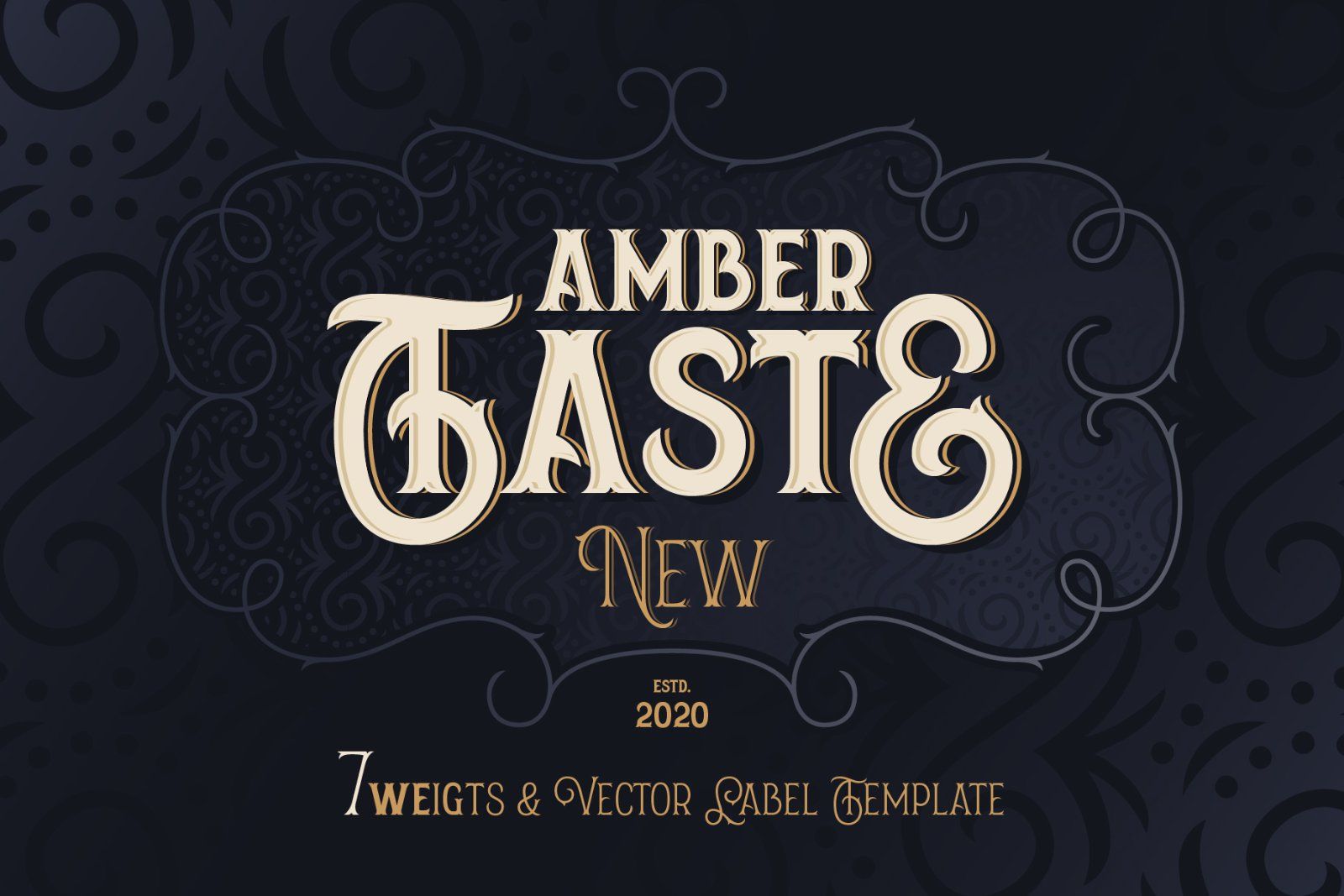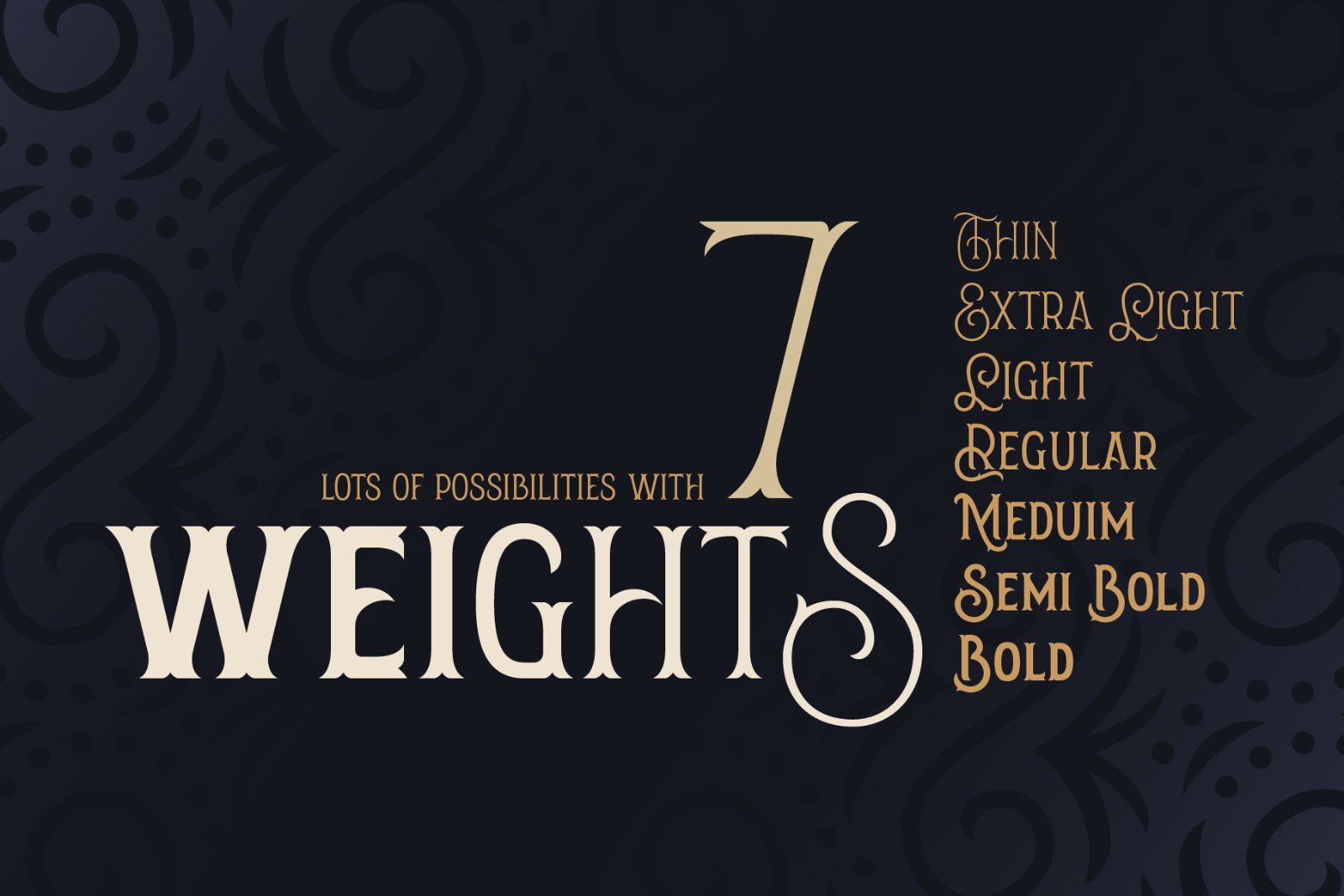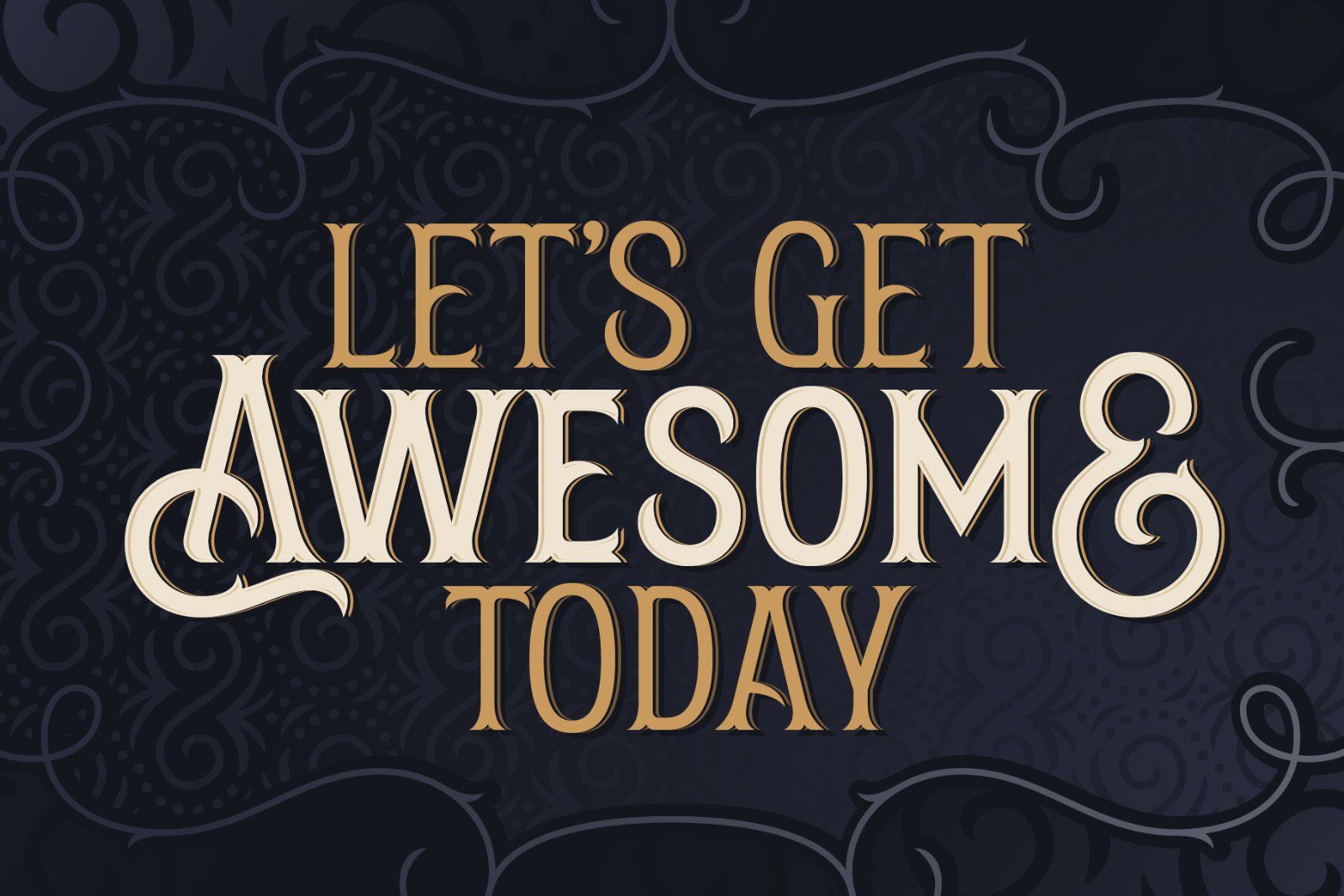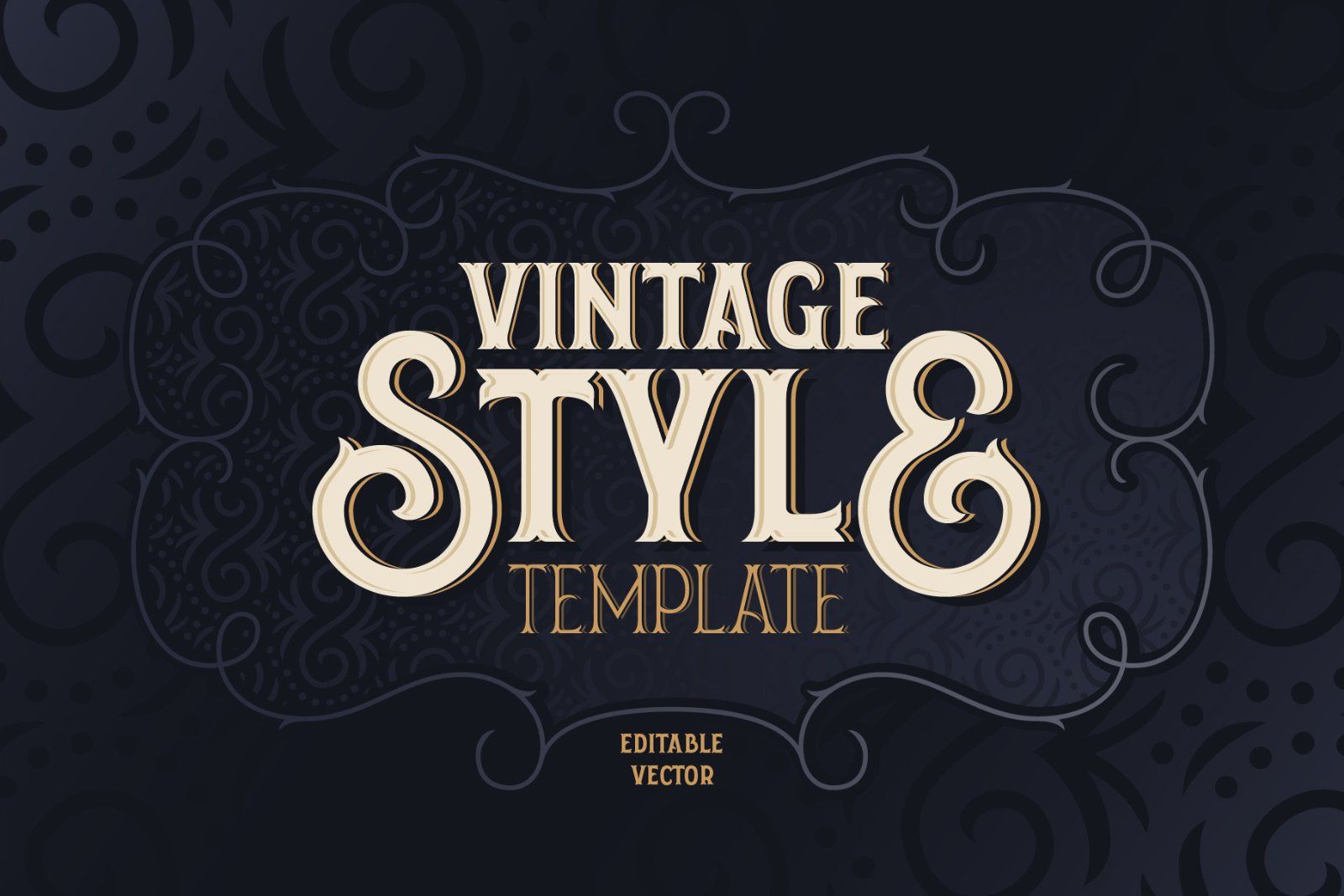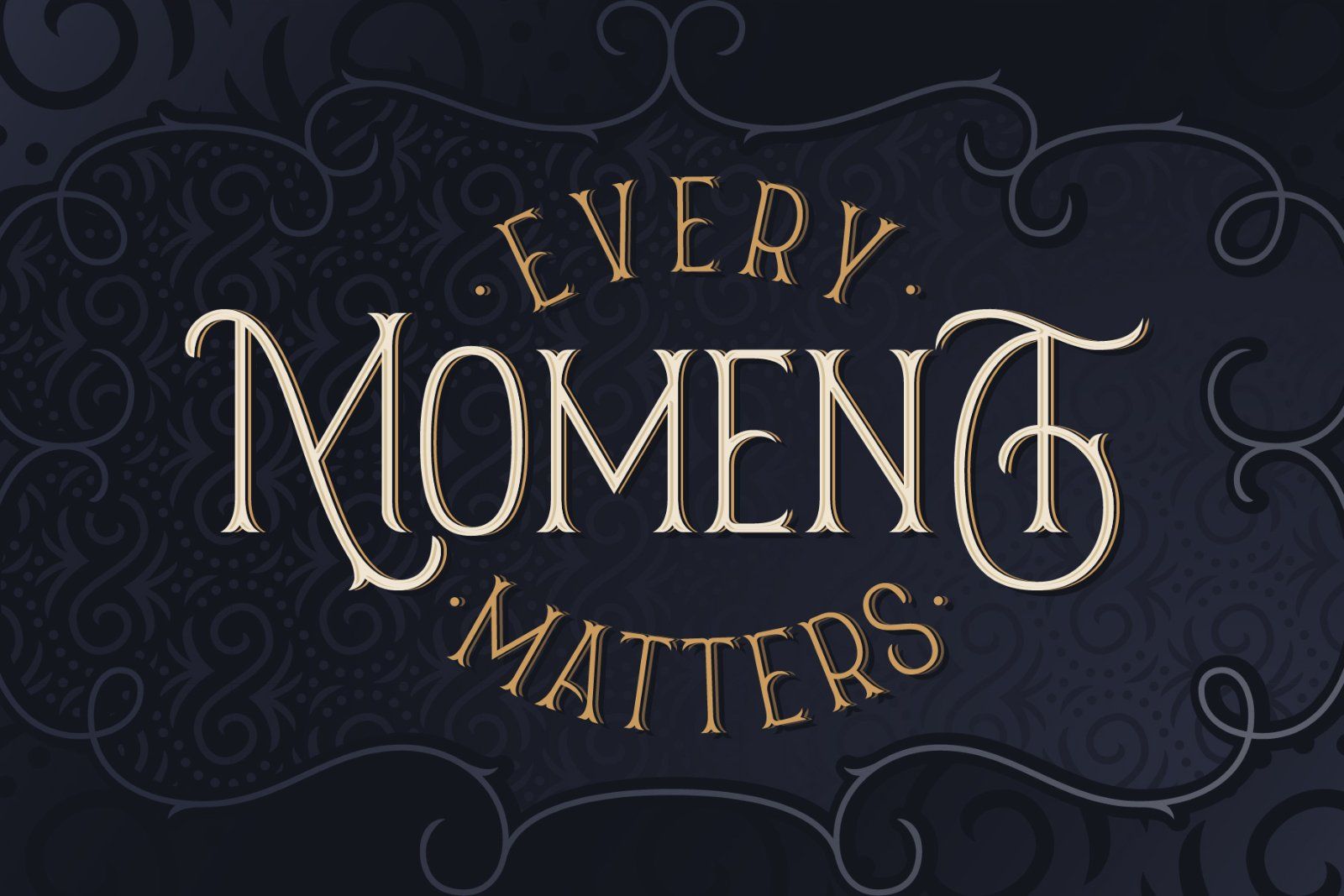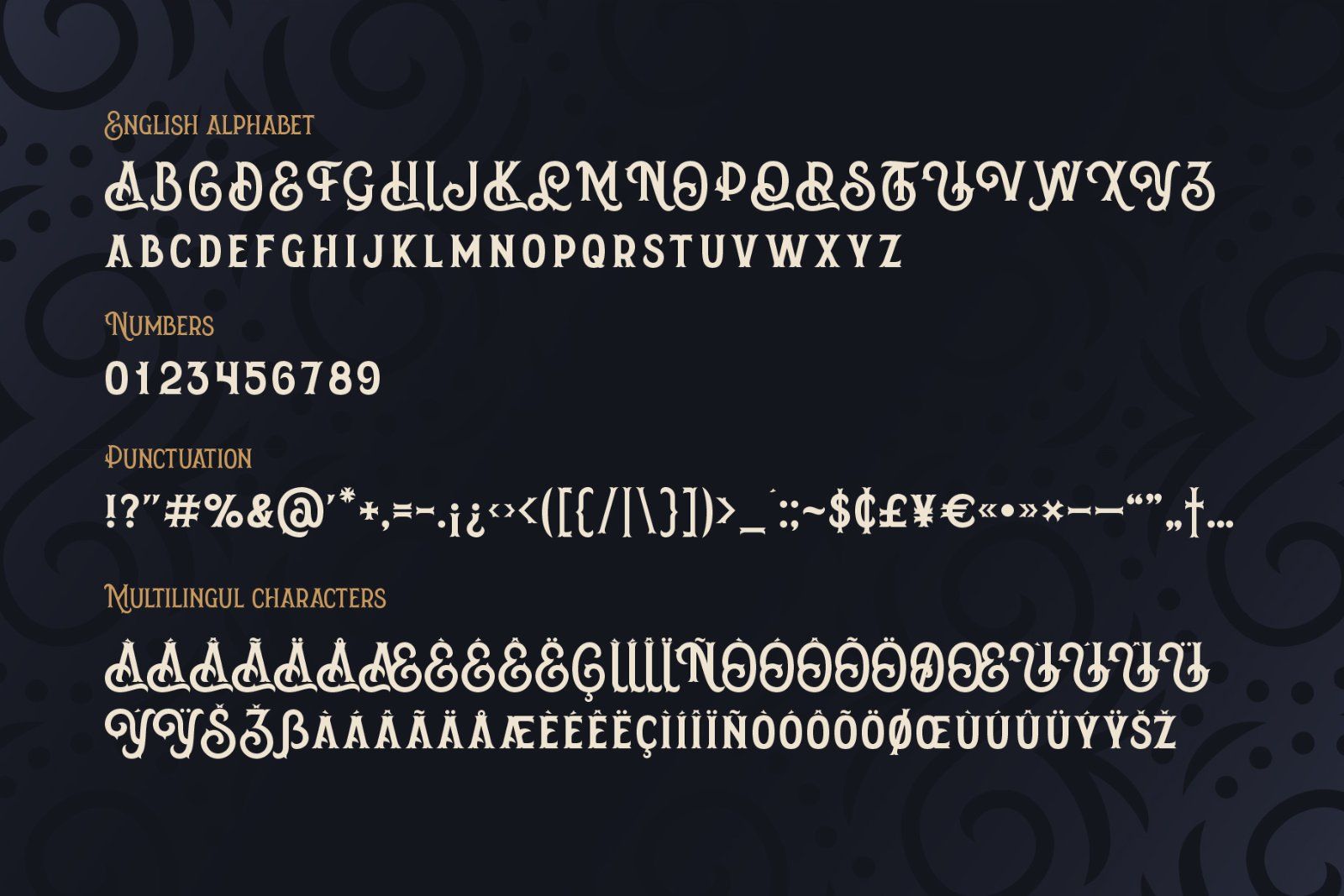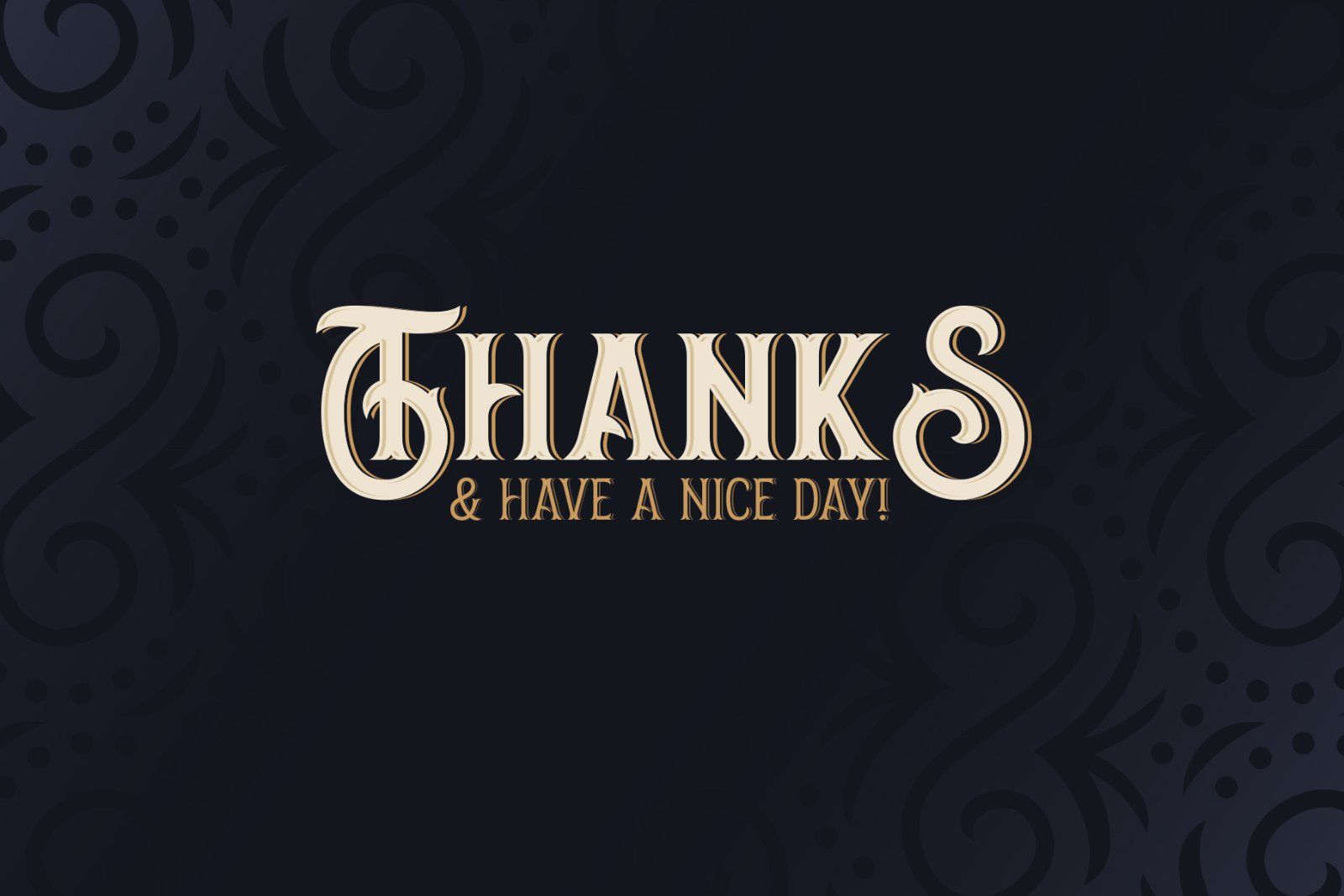
Hi, introducing an Amber Taste New font. It's a vintage typeface with classic shape. Seven weights variations from thin to bold is available. Actually this font set is a remastered version of my best selling font.
New version includes much more characters, including multilingual west European support. All the contours was cleaned up and several glyphs has a new more organic shape.
Also an editable vector label template is included in this set.